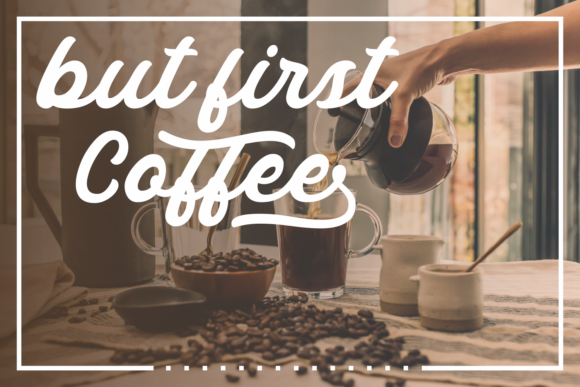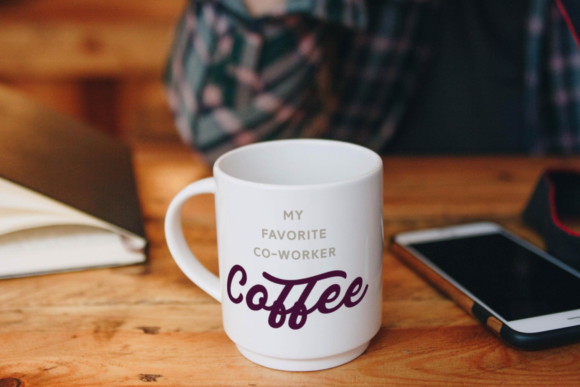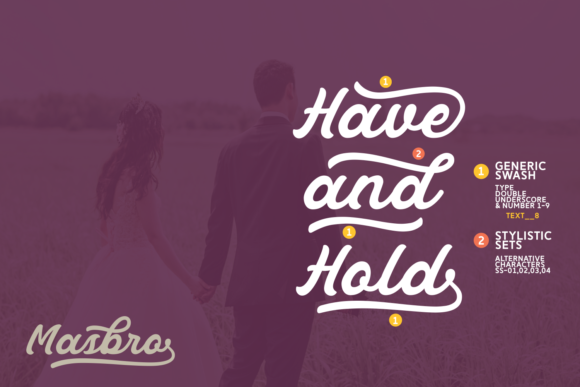
Introduction to Masbro Font
As designers, we’ve all been there – staring at a blank canvas, trying to conjure up the perfect idea for a creative project. The words “the perfect font” often come to mind, and it’s a quest we’ve all undertaken at some point. But what if I told you that the search is over? Enter Masbro Font, a stunning hand-lettered script font that’s about to revolutionize your design game.
With its beautiful swashes and striking letters, Masbro Font is the perfect addition to any design resource. Whether you’re working on a branding project or creating a visual identity, this high-quality font is sure to elevate your work. And the best part? It’s available for a free download, complete with a transparent background, making it a valuable asset for any designer.
As a designer, having access to high-quality fonts like Masbro Font can make all the difference in bringing your creative vision to life. So why settle for anything less? Dive into the world of Masbro Font and discover a new level of design sophistication.
Key Features of Masbro Font
- High-quality, professional design resource ideal for creative projects, including logos, branding, and typography.
- Resolution-independent design, ensuring crisp and clear text at any zoom level or resolution.
- Perfect for designers, artists, and creatives seeking a unique, high-quality font to elevate their work.
Honest Review: Masbro Font
I recently had the chance to work with the Masbro Font for a creative project and I must say it’s been a great addition to my design resource library. The font is available for a free download, which is always a bonus for designers on a budget.
The high quality of the font is immediately noticeable. The transparent background and clean lines give it a modern and sleek feel that works well for a variety of design applications.
Here are some of the things that work well with the Masbro Font:
- ✨ Versatility: The font is suitable for both print and digital designs, making it a great all-around choice.
- ✨ Legibility: The font is easy to read, even at smaller sizes, which is essential for clear communication in design.
- ✨ Customization: The font can be easily customized to fit the specific needs of your design project.
However, I did encounter some limitations: ⚠️ The font may not be suitable for extremely large or complex designs, and the free version has some restrictions on commercial use.
Overall, I’m impressed with the Masbro Font and would recommend it to designers looking for a high-quality, free download for their creative projects.
Using the Masbro Font in Creative Projects
The Masbro Font can be used in a variety of creative projects, including Canva designs, Adobe Photoshop and Illustrator compositions, and PowerPoint and Word documents.
Tips for Getting the Most Out of the Masbro Font
For best results, use the Masbro Font on a transparent background to allow for maximum flexibility and customization. You can also experiment with different font sizes and styles to create unique and eye-catching designs.
The Masbro Font is ideal for use in logos, branding materials, and other design projects where a high-quality, customizable font is required. It’s also great for creating visually appealing titles and headings in presentations and documents.
Alternatives to Masbro Font
The Great Vibes Font is a high-quality, elegant script font perfect for creative projects that require a touch of sophistication. It’s ideal for use in wedding invitations, branding, and other design elements that need a refined, cursive look. Compared to Masbro Font, Great Vibes Font has a more polished and refined feel, making it suitable for high-end design projects.
Alex Brush Font is a beautiful, handwritten font that’s perfect for adding a personal touch to your design. It’s great for use in invitations, quotes, and other creative projects where a unique, handwritten feel is desired. In comparison to Masbro Font, Alex Brush Font has a more organic and natural feel, making it ideal for projects that require a human touch.